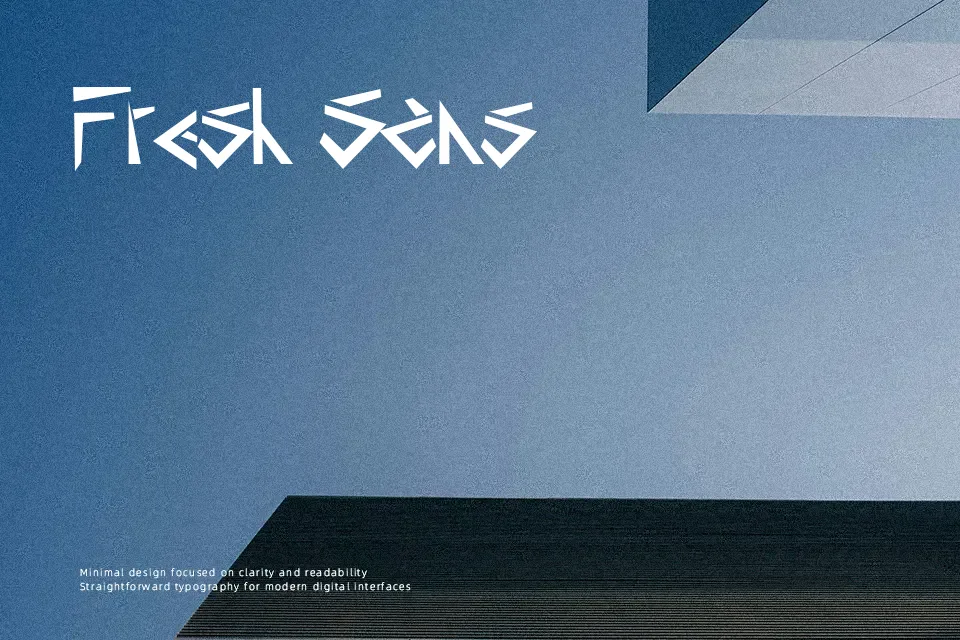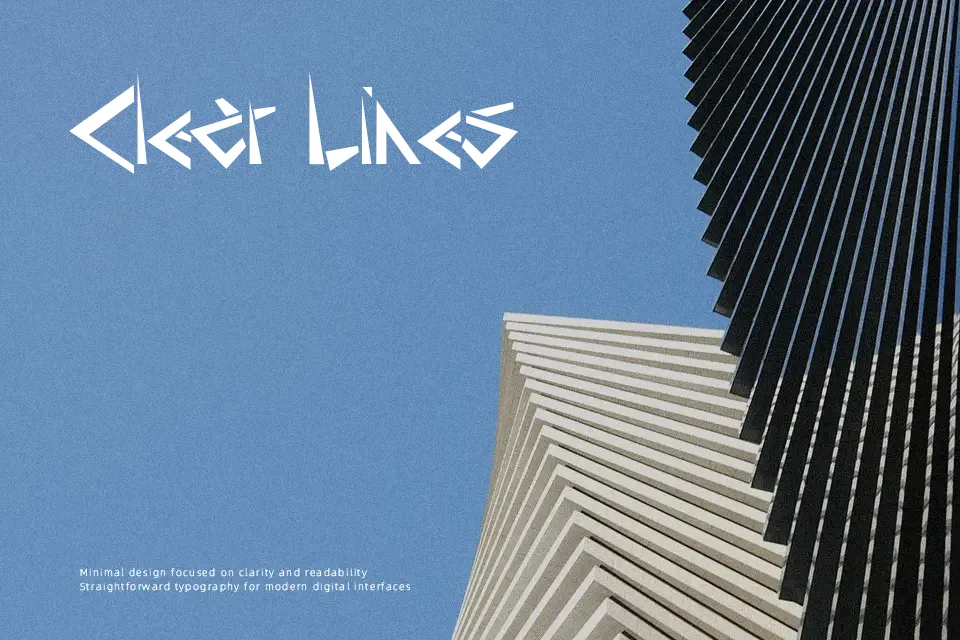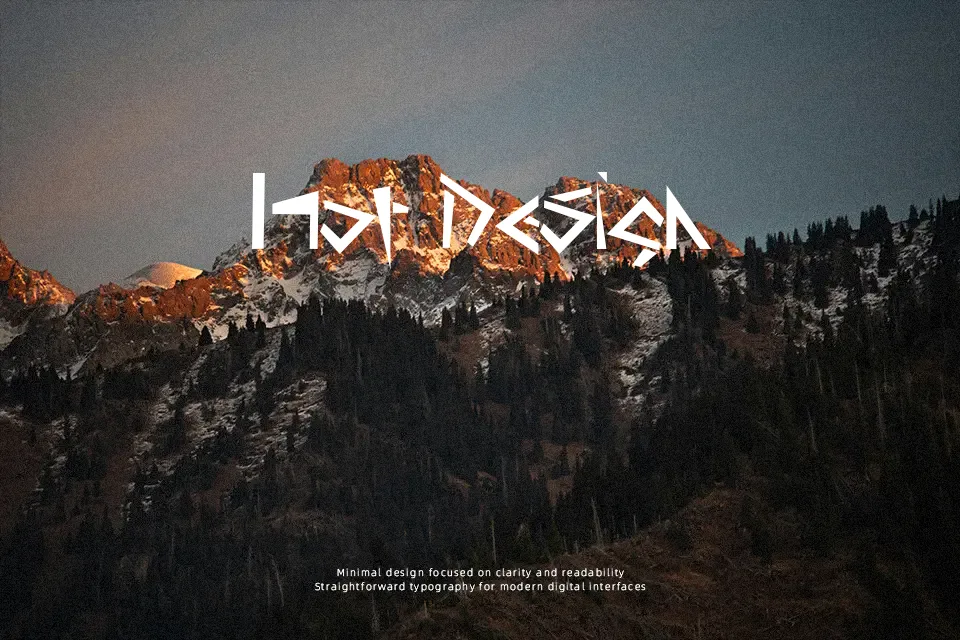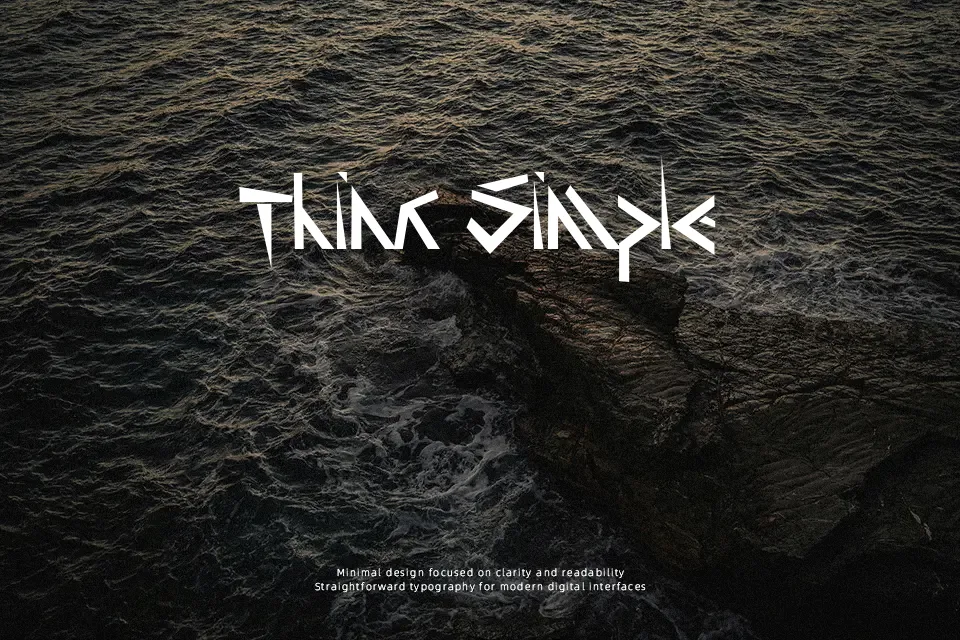
Atlantis Font
Designed by Pearce Michal
There’s something deliberately unsettling about Atlantis — its letterforms feel borrowed from a civilization that never existed. Constructed with sharp, angular strokes and irregular geometry, it reads more like a coded script than standard Latin text. Uppercase and lowercase characters carry a consistent alien rhythm, with tight spacing that reinforces the dense, mysterious tone. It works well on movie or game titles, fan fiction covers, or themed event branding where the visual concept requires maximum departure from convention. That said, legibility drops fast at small sizes, and extended reading is essentially out of the question. If your audience needs to parse information quickly, this font will create friction rather than clarity.
Best For:- sci-fi or fantasy game title screens
– themed event poster headlines
– speculative fiction book or zine covers
– alternate universe or alien concept branding
Not Ideal For:- body text or long-form reading
– professional or corporate documents
– multilingual or accent-heavy typesetting
– UI labels or navigation elements
Perfect for film, gaming, and headline, with a ancient and decorative style.